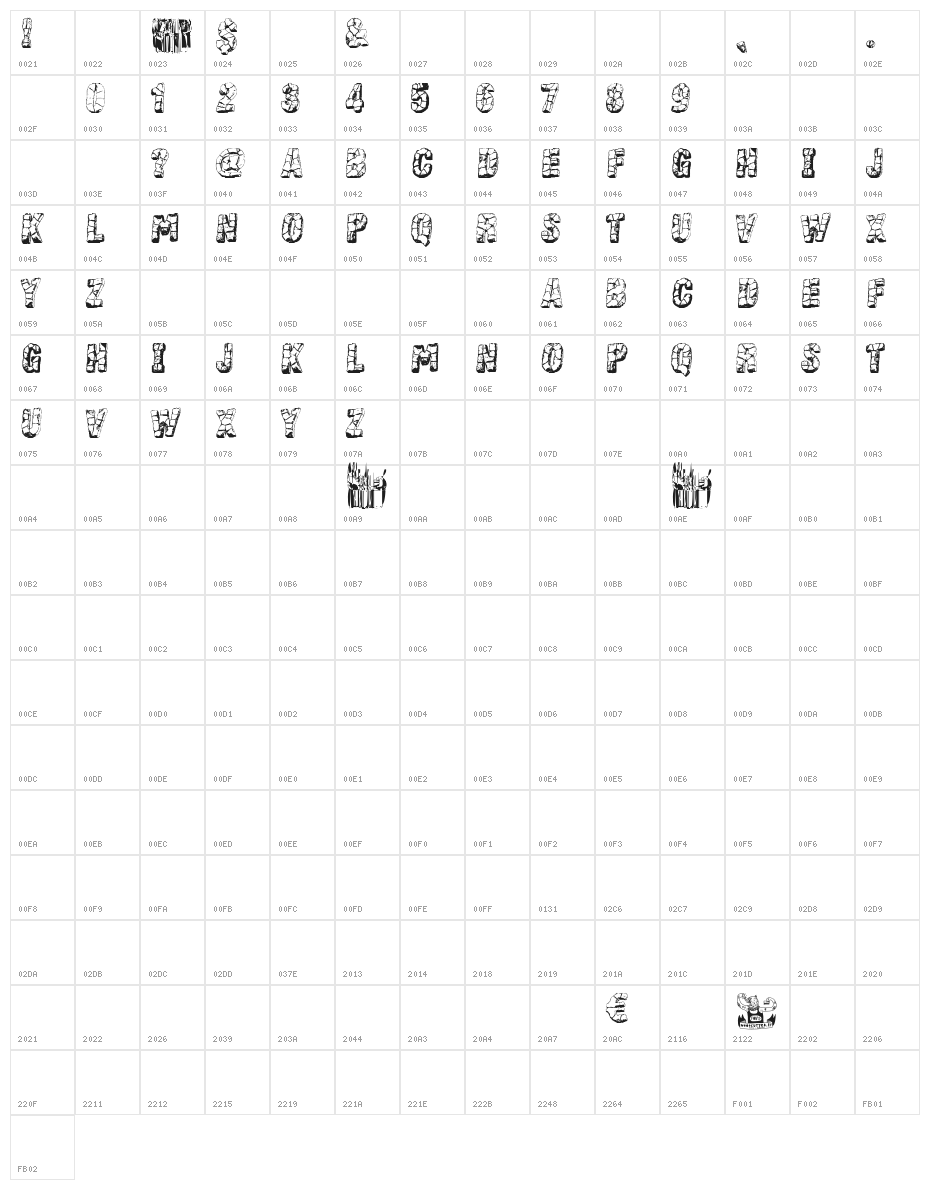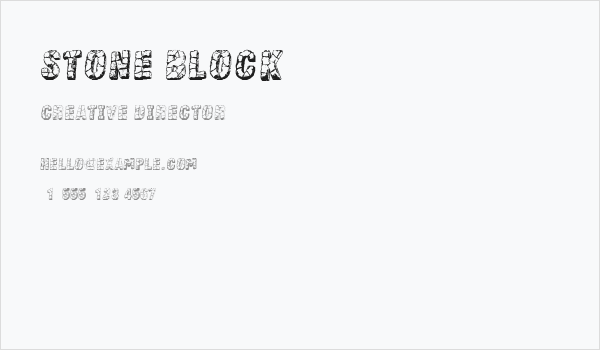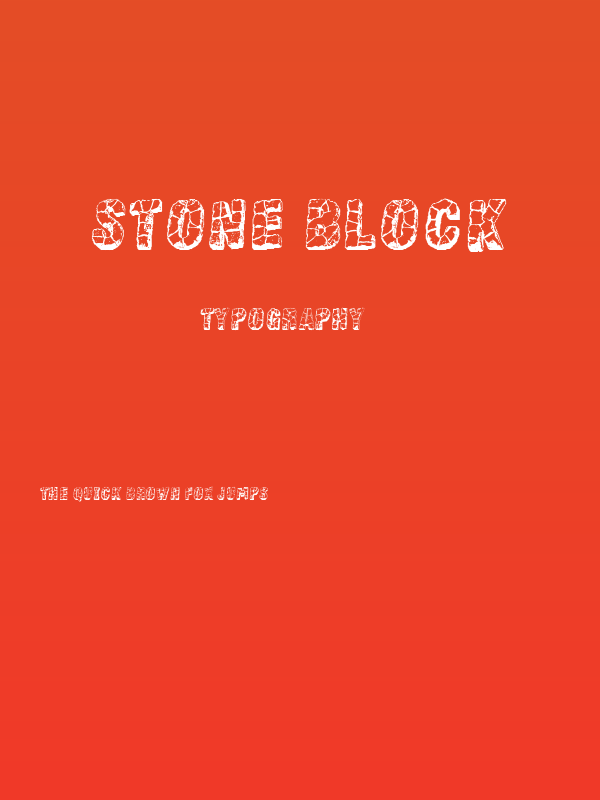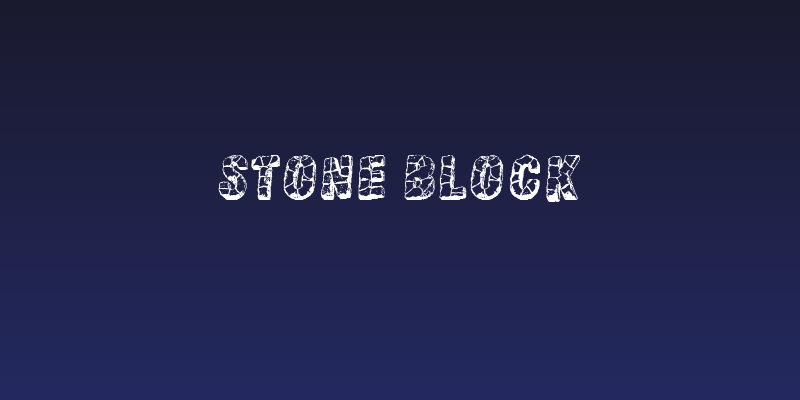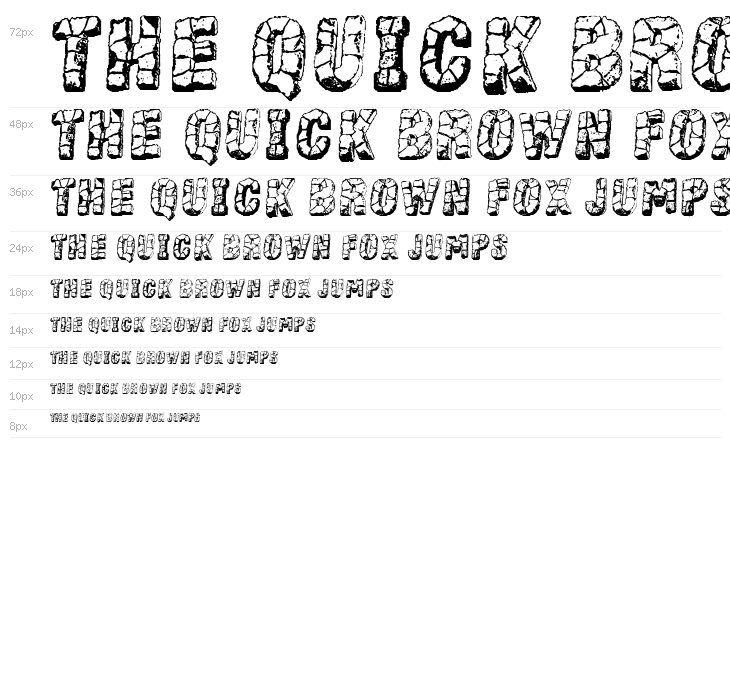
Stone block Font
| Progetti proposti | Ideal for use in adventure-themed posters, video game titles, outdoor event branding, and any project requiring a strong, earthy aesthetic. |